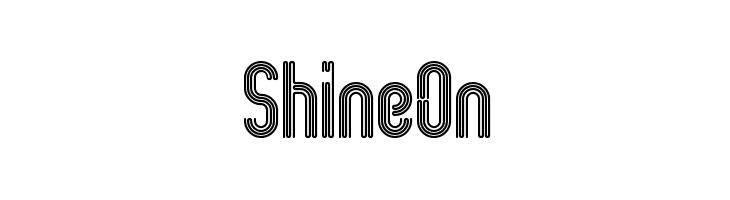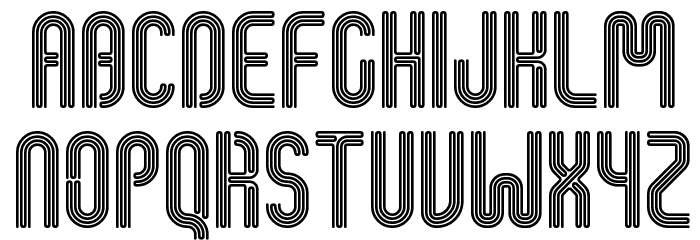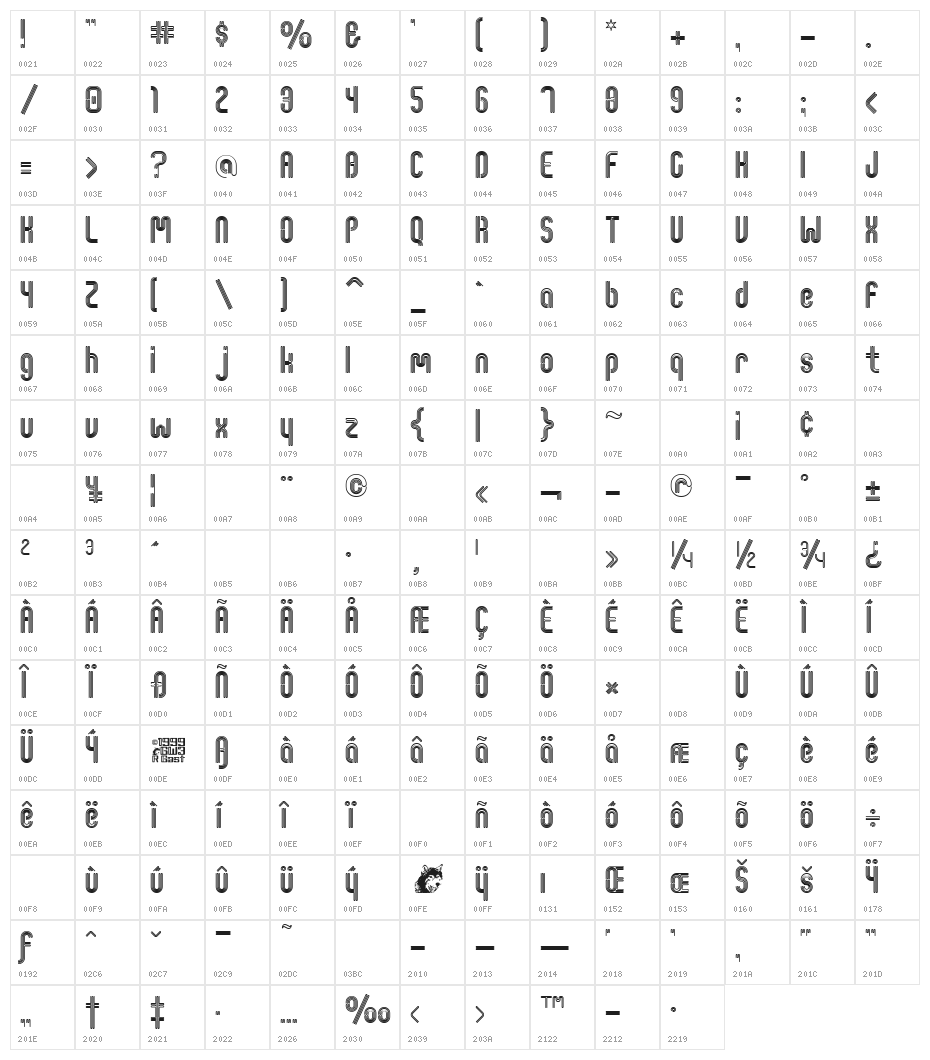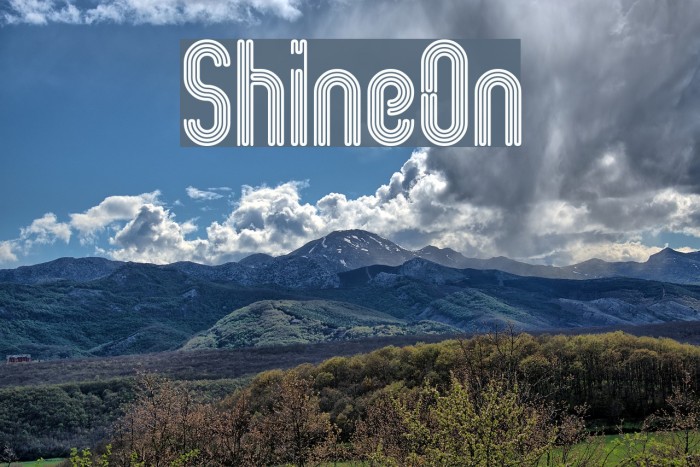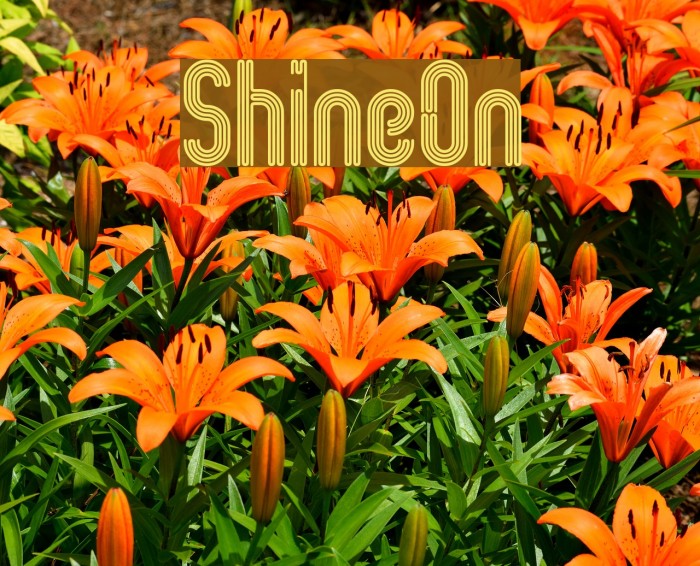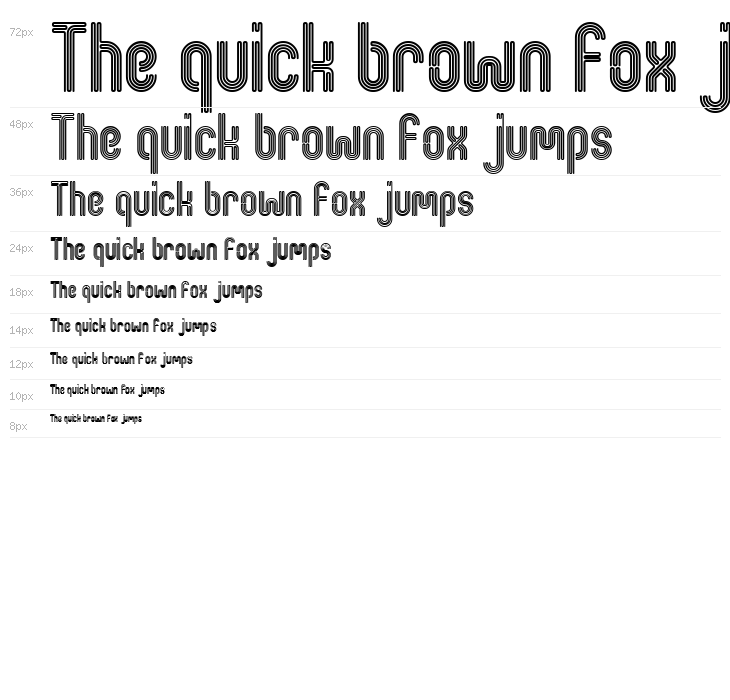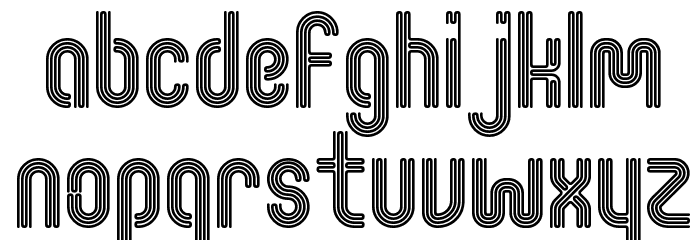
ShineOn Font
ShineOn Description
This font features a unique and eye-catching design with multiple parallel lines forming each character, creating a sense of depth and movement. The letters are bold and geometric, with a distinct retro-futuristic vibe. The consistent line thickness throughout the characters gives it a cohesive look, while the open spaces within the letters add a touch of modernity. The font is highly decorative, making it ideal for projects that require a standout visual element. Its intricate design is balanced by a clear and readable structure, ensuring that it remains legible despite its complexity.
| Overall Style | Retro-Futuristic |
| Proposed Projects | Ideal for posters, album covers, branding, and any project needing a striking visual impact. |